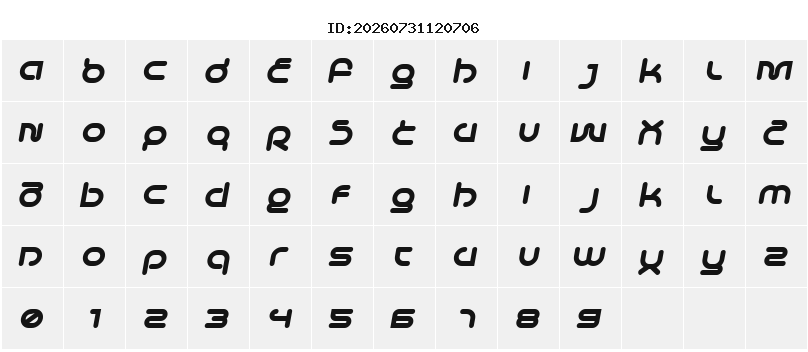
• Font Name: Life in Space
• Font Style: BoldItalic
• Full Font Name: Life in Space BoldItalic
• PostScript Name: LifeinSpaceBoldItalic
About Life in Space.ttf
Life in Space.ttf is a modern, elegant sans-serif font designed for ultimate readability and visual harmony. Perfect for branding, headlines, web design, and print materials.